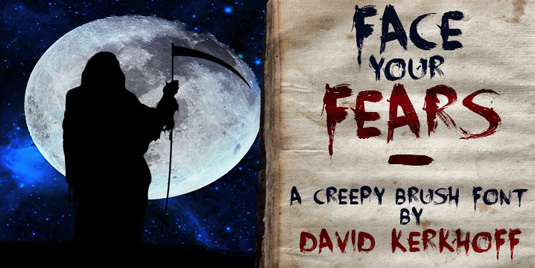
Font of the day: Face Your Fears
Celebrate All Hallows' Eve with this free, creepy brush font by type designer David Kerkhoff.
Face Your Fears by David Kerkhoff
Want to add some type to your Halloween-inspired designs? Then this creepy brush font Face Your Fears may be just what you're looking for. Created by type designer David Kerkhoff, the font includes a full set of uppercase letters, numbers and various special characters.